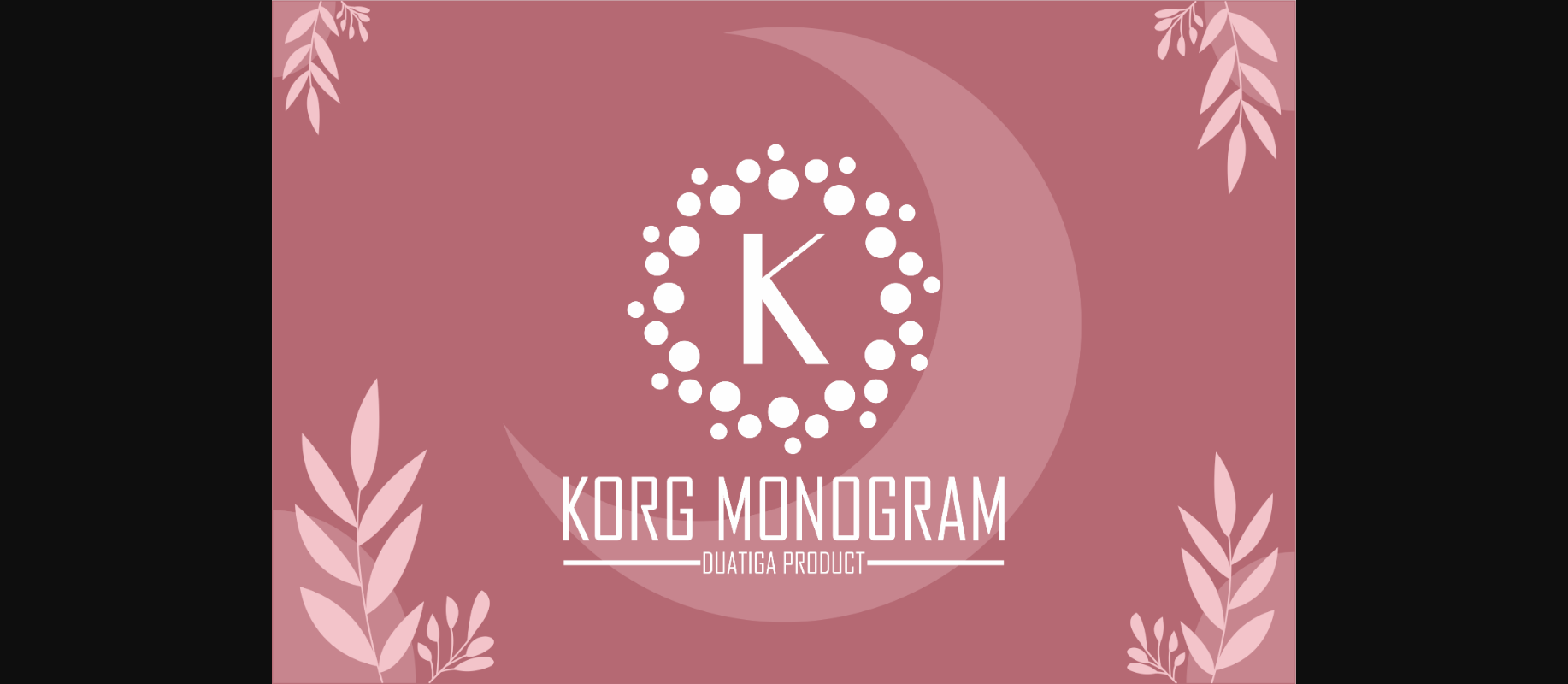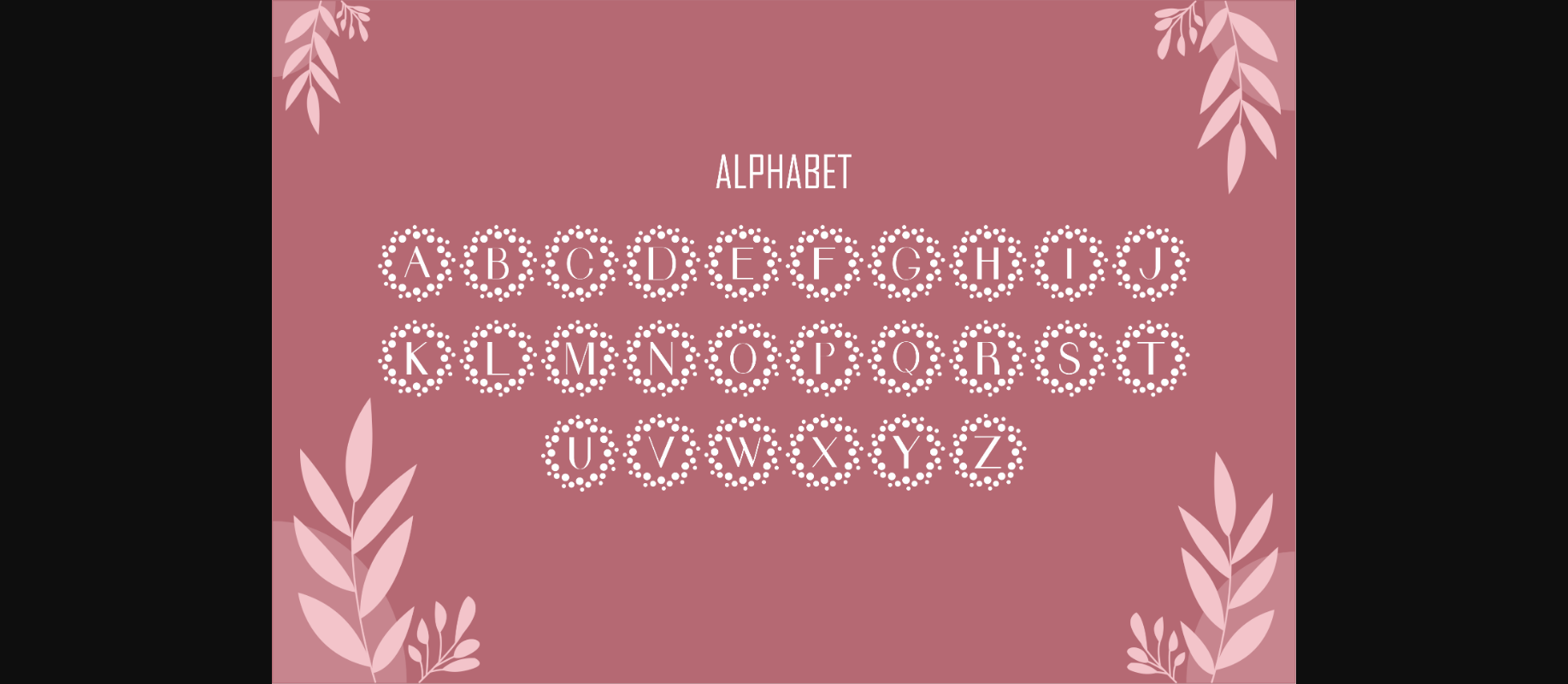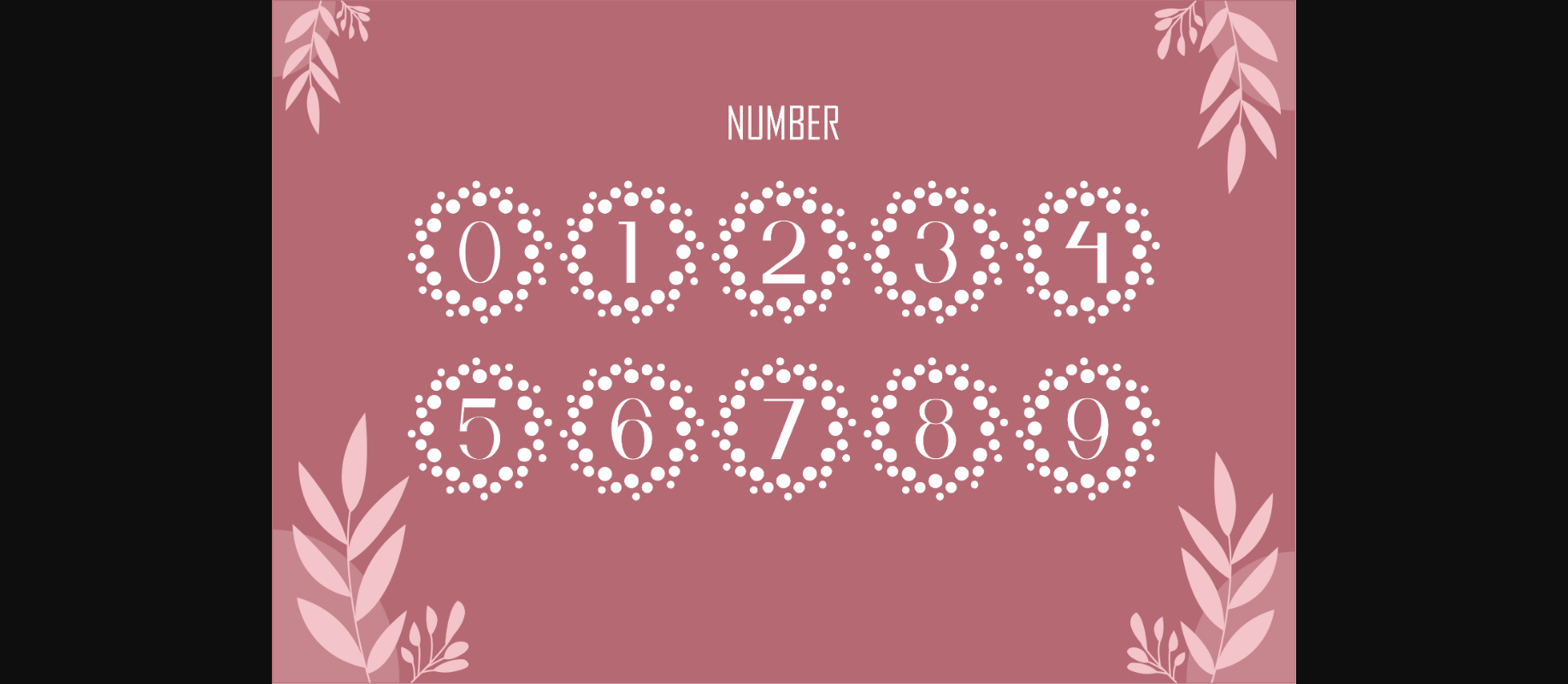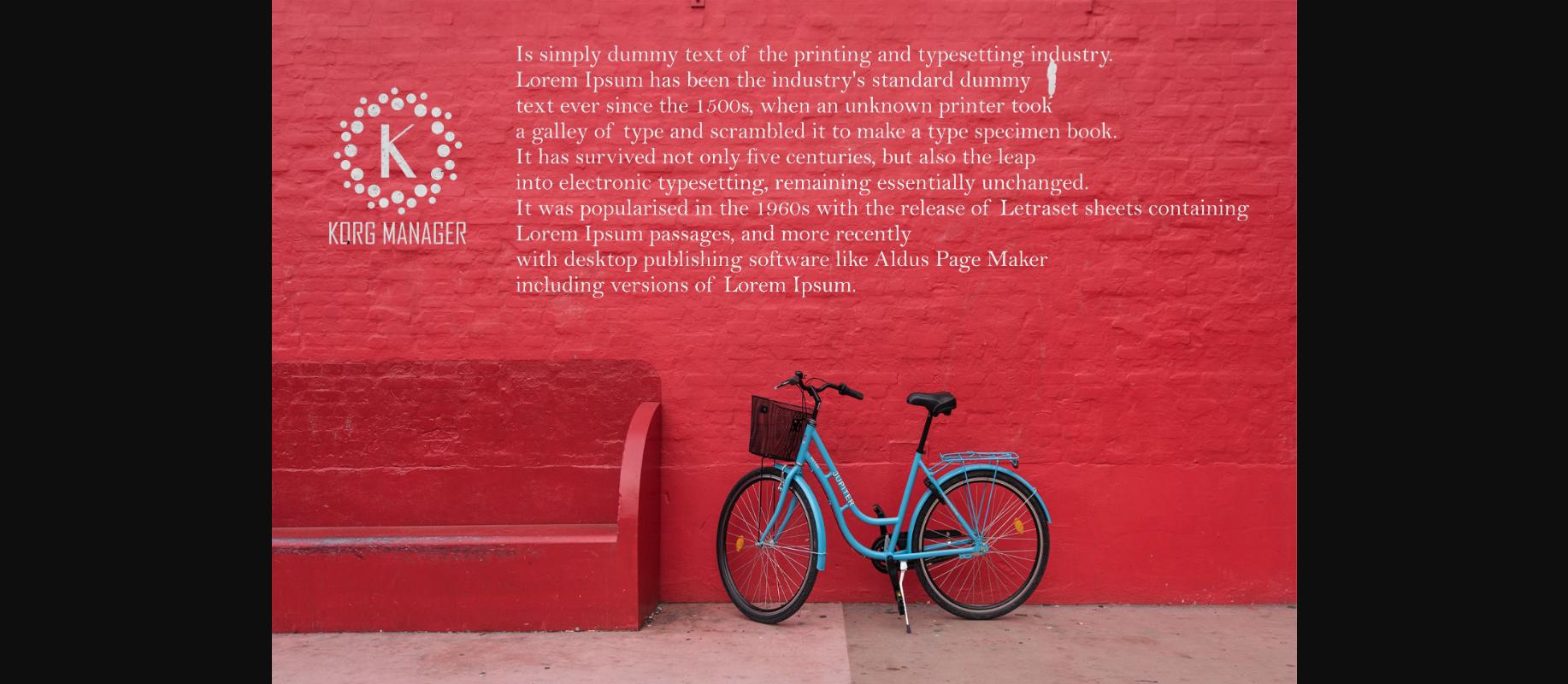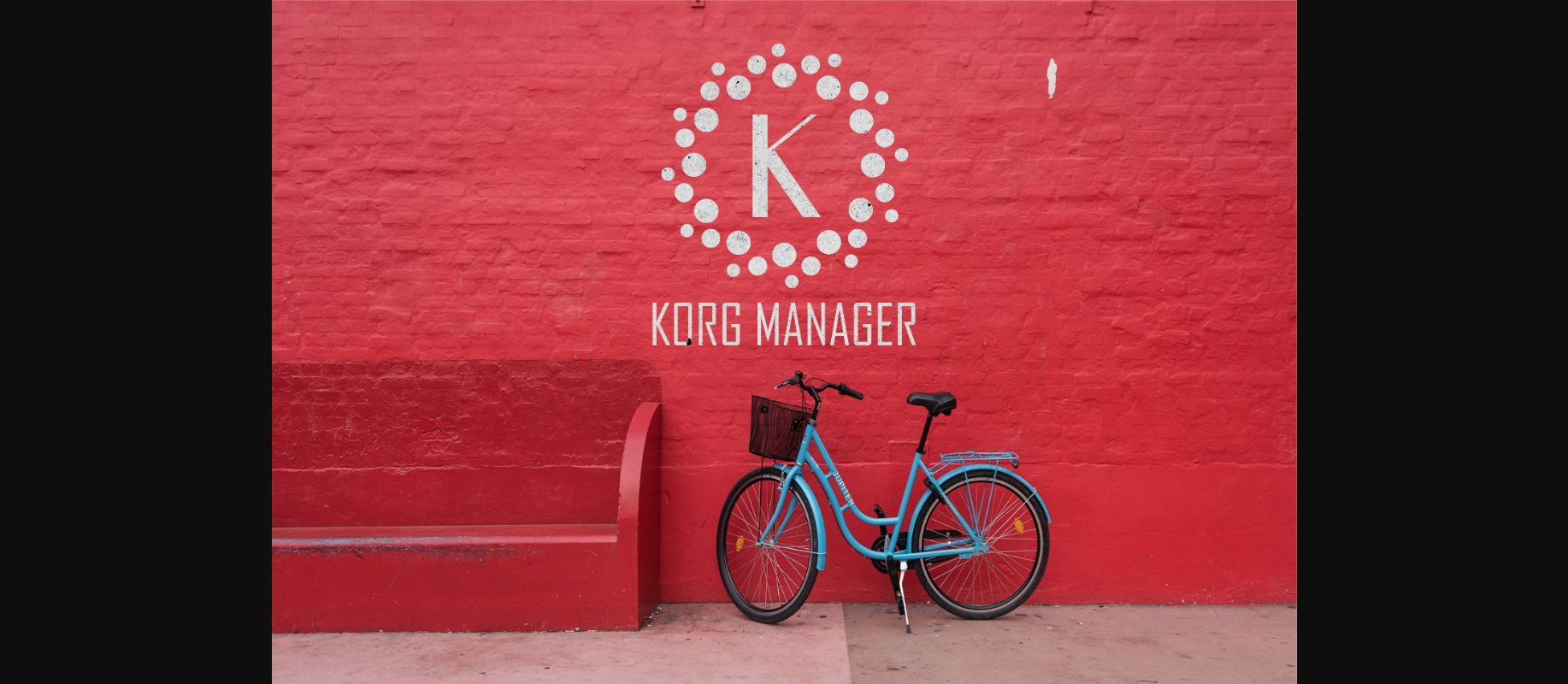
Korg Monogram Font
About Korg Monogram Font
Korg Monogram is a modern and unique decorative font. It looks amazing on wedding invitations, thank you cards, quotes, greeting cards, logos, business cards and any other designs that require a personalized touch. You will be amazed by the result.